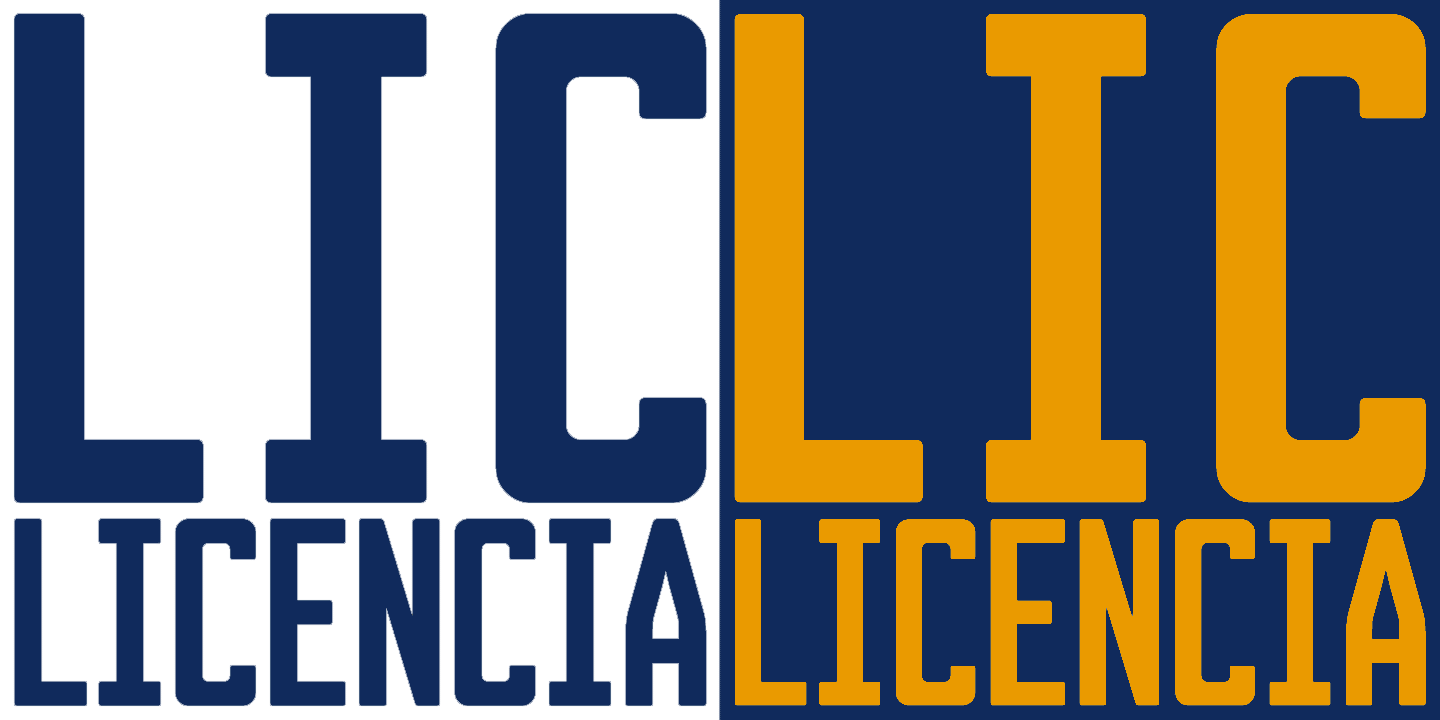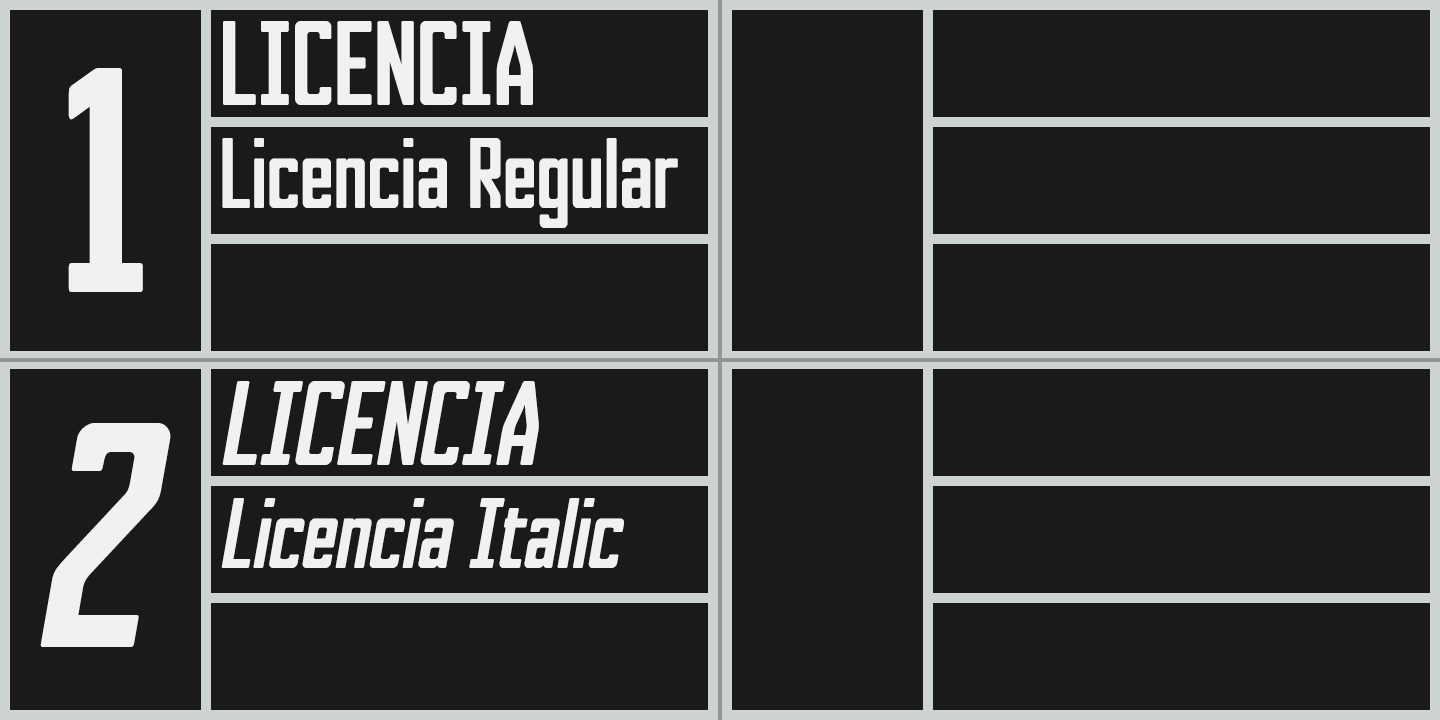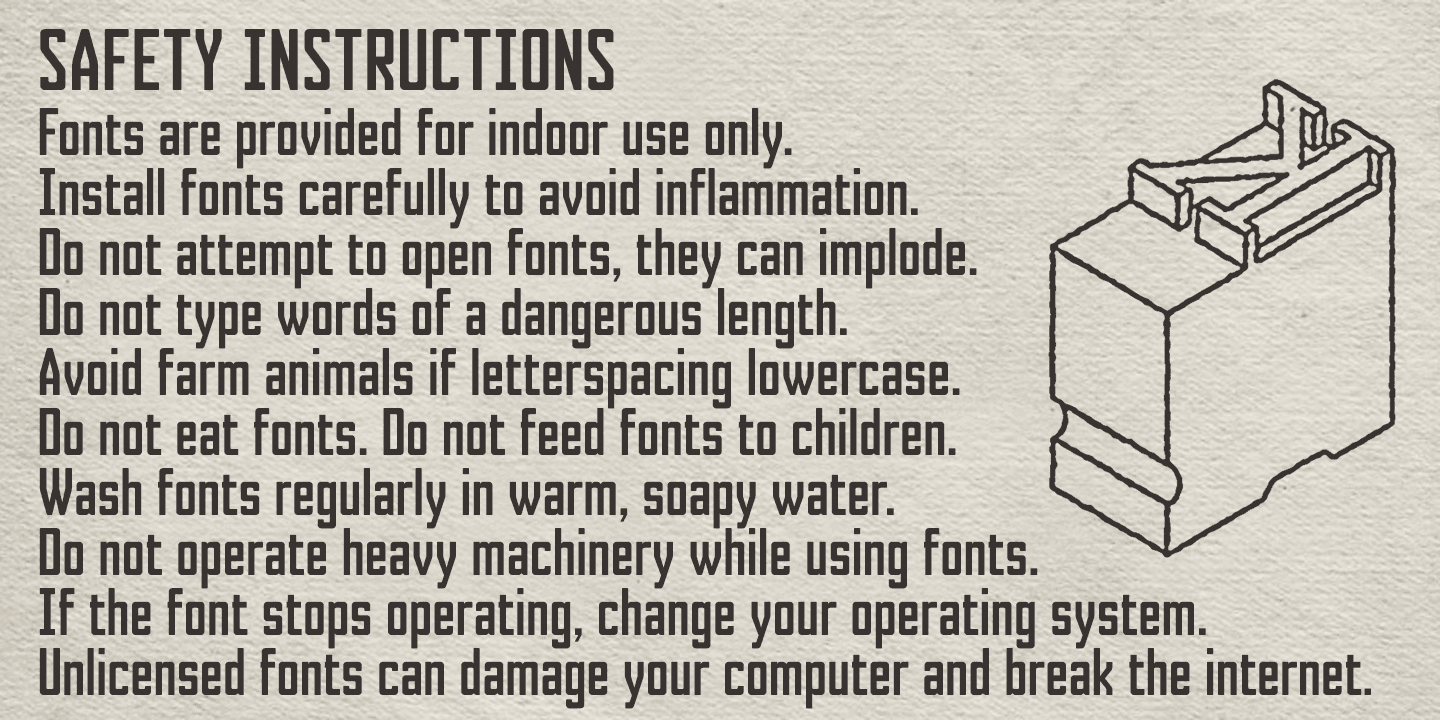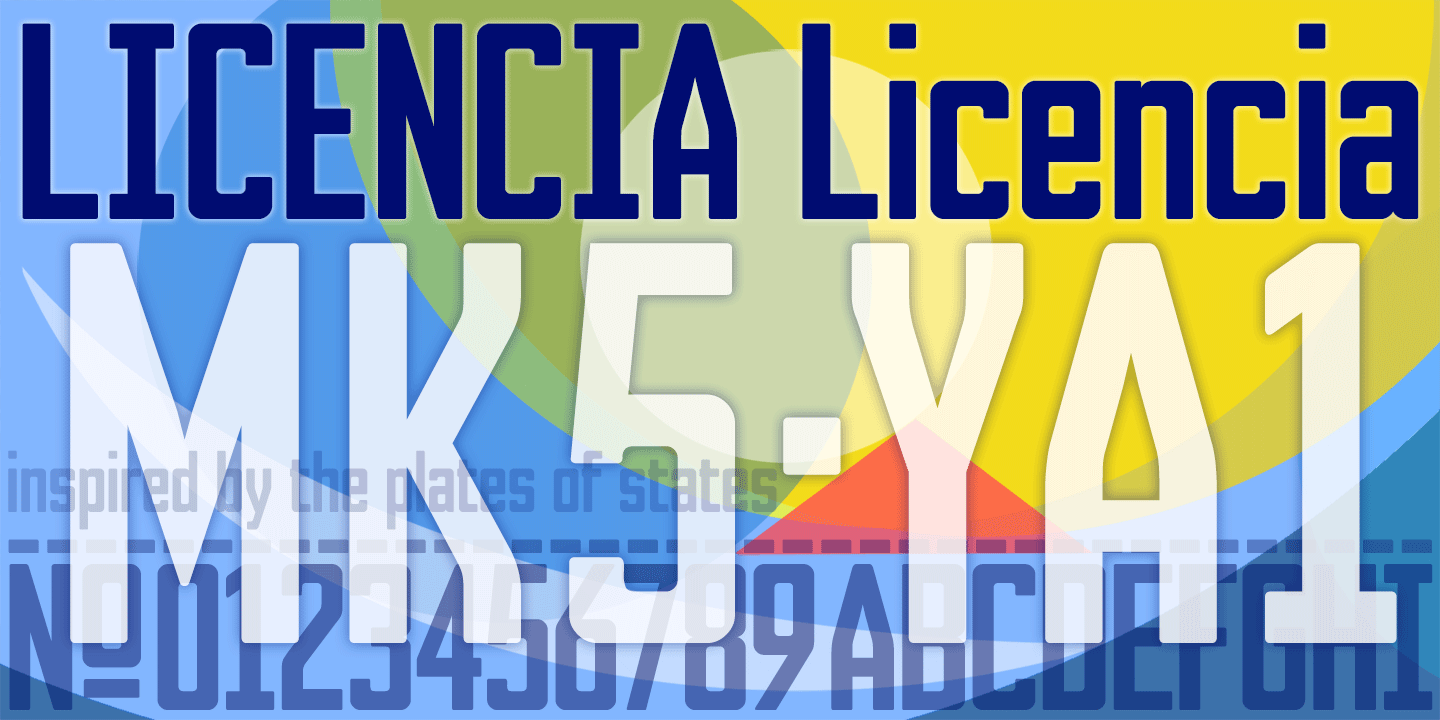
About Licencia
Licencia is inspired by the tall, soft-cornered lettering on vehicle licence and registration plates world-wide, and has the functional appearance of serial numbering. Although designed using a 3